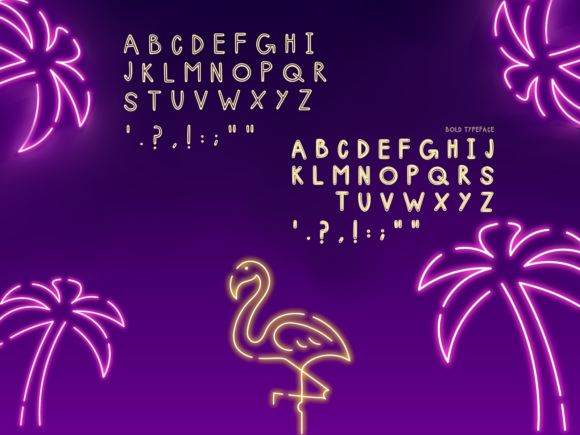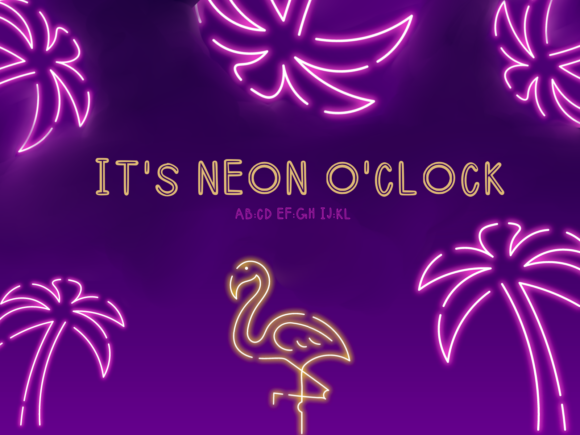
Neon:Ness Font
About Neon:Ness Font
Neon:Ness is a bold, vibrant, and electrifying display font that brings the vibrant glow of neon lights to your designs. Inspired by the captivating energy and allure of neon signs, this font is perfect for adding a touch of excitement and modernity to your projects.
The unique design of Neon:Ness emulates the glowing tubes of neon lights, with sharp edges and intricate letterforms that capture the essence of this iconic art form. Each letter is carefully crafted to replicate the bold and captivating appearance of neon signage, allowing you to create eye-catching and attention-grabbing designs.
With its electric energy and vibrant colors, Neon:Ness is particularly well-suited for use in advertisements, signage, logos, and any design that calls for a bold and contemporary aesthetic. It stands out on both digital and printed mediums, commanding attention and conveying a sense of modernity and urban flair.
One of the key features of Neon:Ness is its versatility. It can be used effectively in a variety of design contexts, from nightlife promotions and entertainment events to futuristic-themed projects and contemporary branding. Its bold and striking appearance ensures that your message is conveyed with impact and memorability.
Neon:Ness is designed to make your text come alive with its energetic and electrifying presence. It embraces the spirit of urban nightlife and the dynamic atmosphere of neon-lit streets. The font radiates a sense of excitement and energy, instantly drawing the viewer’s attention and creating a visually engaging experience.
Whether you’re designing a nightclub poster, a vibrant social media graphic, or a cutting-edge logo, Neon:Ness is a font that captures the essence of neon lights and brings it to your fingertips. Its bold and captivating style allows you to stand out from the crowd and create designs that are truly unforgettable.
In summary, Neon:Ness is a bold and vibrant display font that emulates the electrifying glow of neon lights. Its unique design and captivating appearance make it perfect for adding a modern and energetic touch to your designs. Whether used for advertising, signage, or branding, Neon:Ness brings the allure of neon to your fingertips and allows you to create designs that captivate and engage your audience.